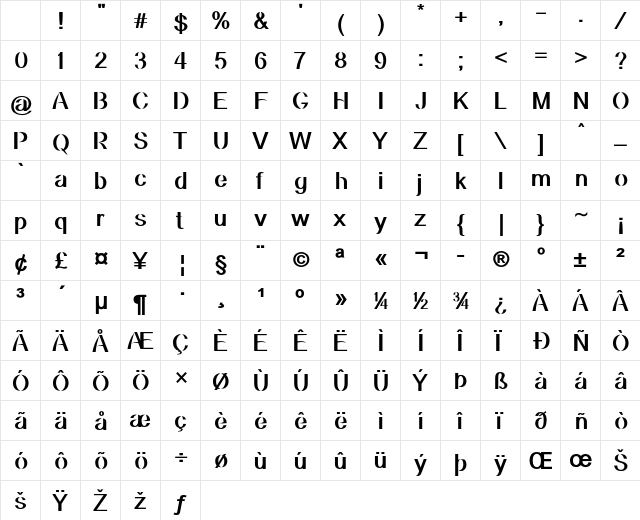
Complete Pastro Bold glyph index. Displaying only characters natively supported by Pastro Bold font.
Pastro is a composed and adaptable typeface that performs quietly and consistently across a wide range of design contexts. Its bold stroke weight gives it real presence on the page.